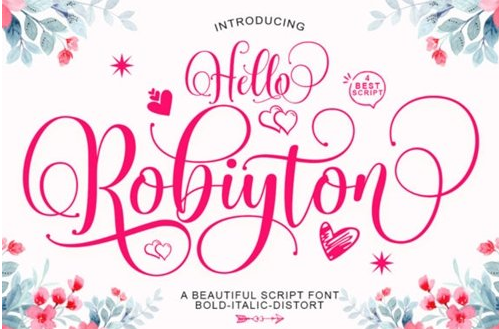
Unlock 20 Photoshop Effects & Fonts: Handy Overlays to Cyberpunk Actions 🎨
Hey there, creative soul! 🎨✨ Ready to take your digital art and photo editing to the next level without breaking a sweat? We’ve handpicked 20 jaw-dropping goodies from the BrushesPack Collection Part 319 — think seamless overlays, cyberpunk actions, vintage fonts, and vibrant HDR effects that will make your work pop like never before. 🚀 Whether you’re a seasoned pro or just starting your artistic journey, this list is your secret weapon for instant creativity. Let’s dive in! 🌟
Why Use These Photoshop Effects & Overlays?
Life’s too short for boring photos, am I right? 😅 These tools let you transform ordinary images into extraordinary masterpieces with just a single click. From adding dreamy light leaks to crafting gritty cyberpunk vibes, you’ll save hours of manual tweaking while unlocking a level of polish that screams “pro.” Plus, they’re a total game-changer for social media content, branding projects, or just impressing your followers on the ‘gram. 💫
Top 20 Photoshop Effects & Design Tools Picks
Handy Seamless Overlays Photo Effects
Get ready to sprinkle some magic ✨ on your photos! These seamless overlays add dreamy textures, soft light leaks, and artistic flair in seconds. Perfect for adding that “wow” factor to any portrait or landscape. 🎭
Dramatic Hdr Portrait Photo Effect
Want your portraits to have that cinematic, high-end magazine look? 📸 This action adds insane depth, clarity, and rich HDR tones with one click — making every face look absolutely stunning. 💥
Color Halftone Dot Photo Effect
Feeling retro? 🕺 This effect turns your images into playful, vintage comic-book style with vibrant dotted halftone patterns. Perfect for posters, album art, or just adding a quirky twist! 🎨
Cyberpunk Photoshop Action D5Fkb4J
Neon lights, glitchy vibes, and futuristic energy! 🌆 This action instantly bathes your photos in cyberpunk magic — perfect for game art, sci-fi edits, or just looking super cool. 🤖💡
Enternal Vintage Stamp Typeface
Calling all font lovers! 🖋️ This typeface brings that authentic, weathered stamp aesthetic to your designs. Perfect for logos, posters, or any project needing a touch of retro charm. ✉️
Crystal Polygons Action
Turn your photos into sparkling, faceted crystal art! 💎 This action creates stunning geometric shards and sharp edges that look modern, edgy, and totally mesmerizing. ✨
Cinematic Traveller Photoshop Action 56Kr64G
Dreaming of epic travel shots? 🌍 This action gives your photos that sweeping, movie-like color grade that makes every scene look like a blockbuster still. Adventure awaits! 🎬
Hello Robiyton Font
Elegant, modern, and oh-so-versatile! 💌 Hello Robiyton Font is your new best friend for branding, invitations, and social media graphics. It adds a touch of class to any text. 🖊️
Glitter Film Emulation Actions For Photoshop
Add a sprinkle of sparkle! 🌟 These actions mimic the gorgeous, shimmery texture of classic glitter film — perfect for moody, magical edits that catch the light just right. ✨💖
Galaxy Effect For Photoshop
Out of this world! 🌌 One click and your photos are swimming in cosmic nebulas, twinkling stars, and deep-space wonder. Ideal for fantasy edits, dreamy portraits, or sci-fi art. 🚀🔮
Glued Photo Effects For Photoshop
Love that handcrafted, collage feel? ✂️ This effect gives your images a charming “glued paper” look with rich texture and depth. Perfect for scrapbook aesthetics or artful social posts! 🖼️
Old Film Photo Effect
Nostalgia overload! 🎞️ This effect adds authentic grain, scratches, light leaks, and warm sepia tones — turning your digital shots into vintage cinema masterpieces. So dreamy! 🌅
Hipster – Photoshop Action 7Mytjbt
Get that cool, indie vibe with a click! 🧢 This action adds trendy retro tones and faded contrasts that scream “effortlessly stylish.” Perfect for urban shots and candid portraits. 🎧
Insta Traveling Photoshop Actions